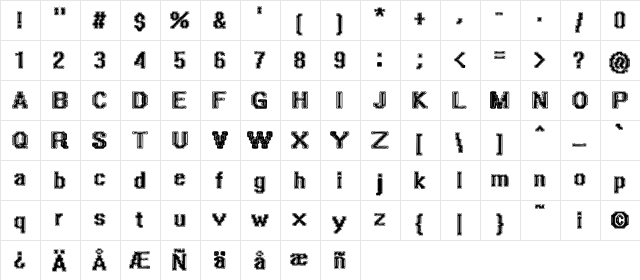
Polished Igneous Regular Font Preview
Polished Igneous Regular
Polished Igneous Regular Font Details
Design Context for Polished Igneous Typeface
Polished Igneous takes a measured approach to typography — its balanced proportions and neutral character make it a reliable workhorse for both digital and print work.